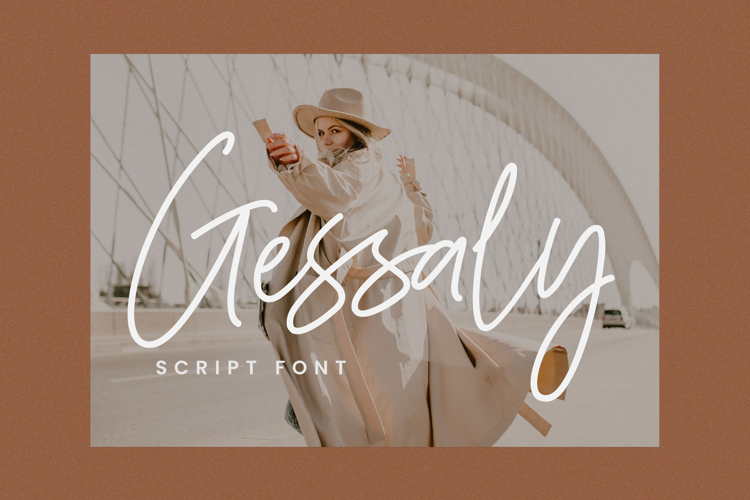
Gessaly Font
About Gessaly Font
Gessaly Handwritten Font is a unique script with a classy and fancy feel. This handwritten font will add an authentic vibe to any design project!